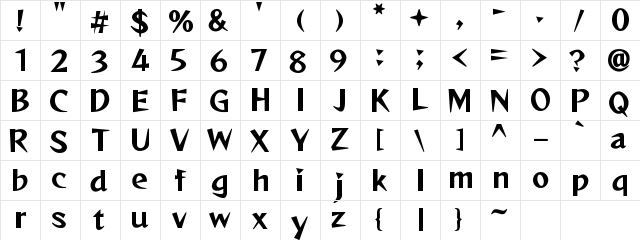
REGGAE by ASLAM Regular
REGGAE by ASLAM is a composed and adaptable typeface that performs quietly and consistently across a wide range of design contexts.